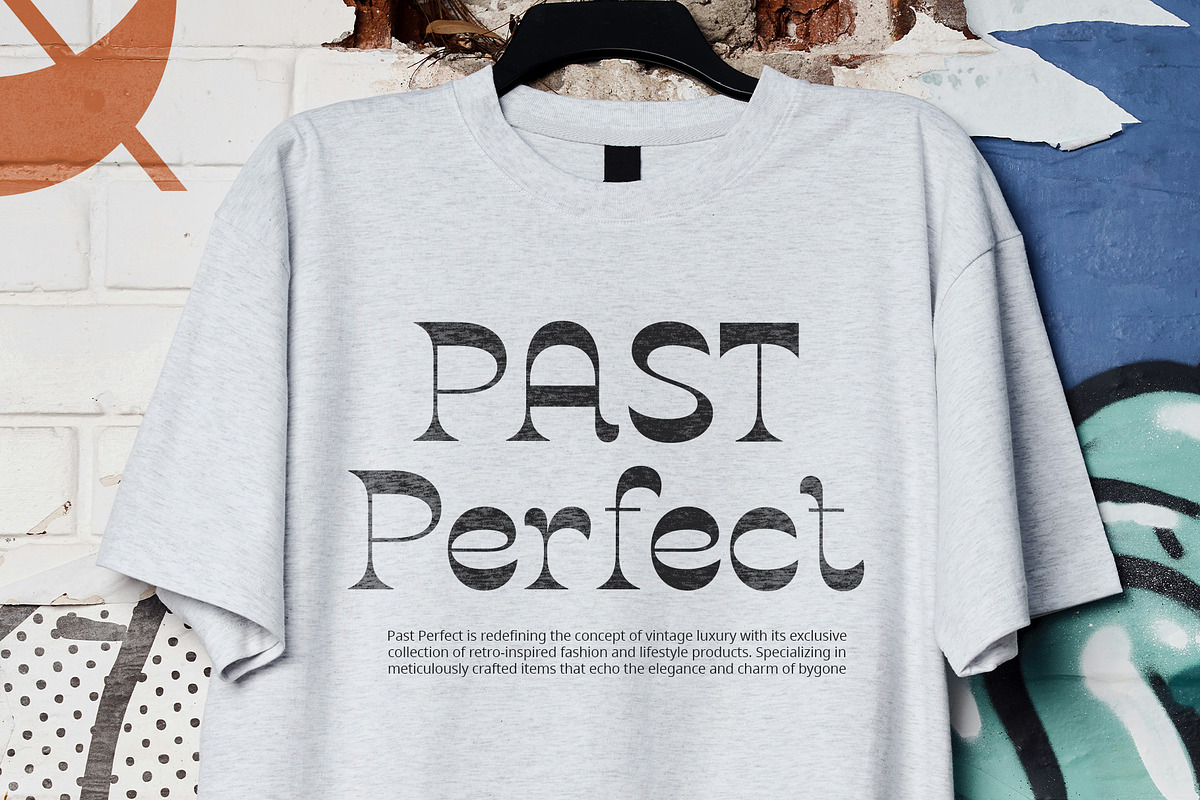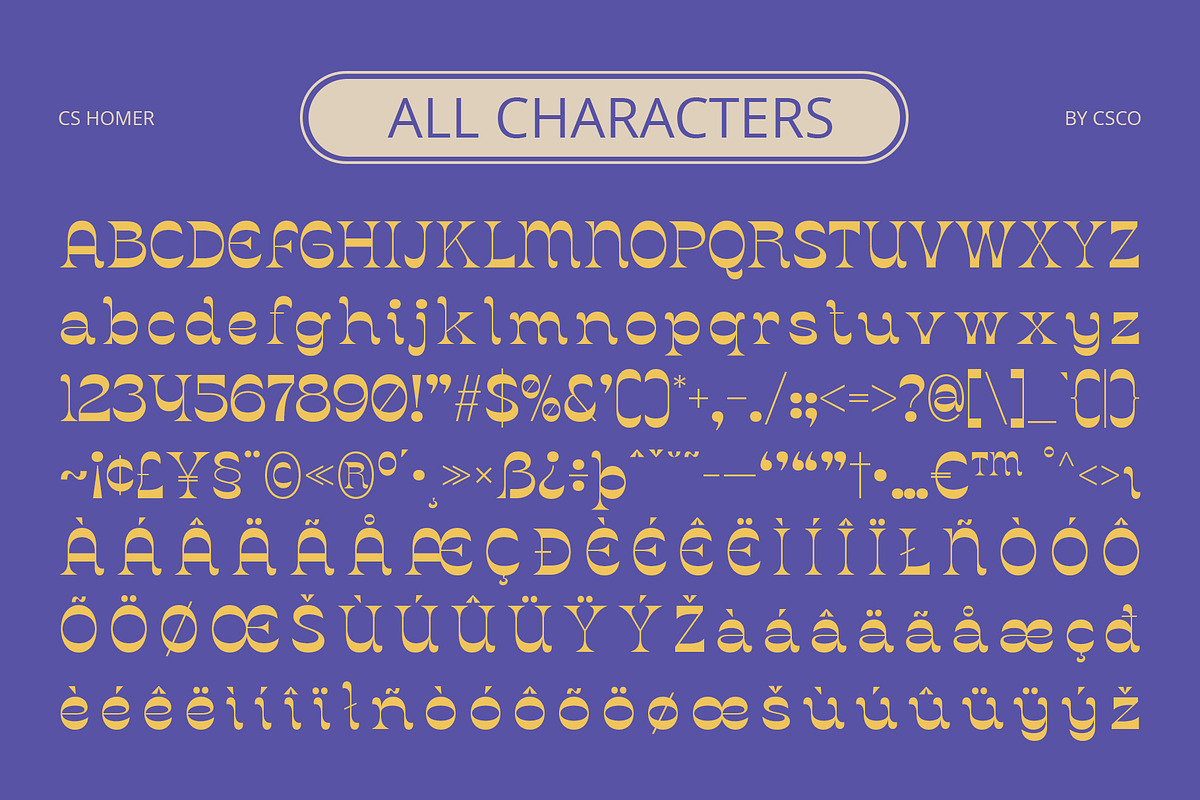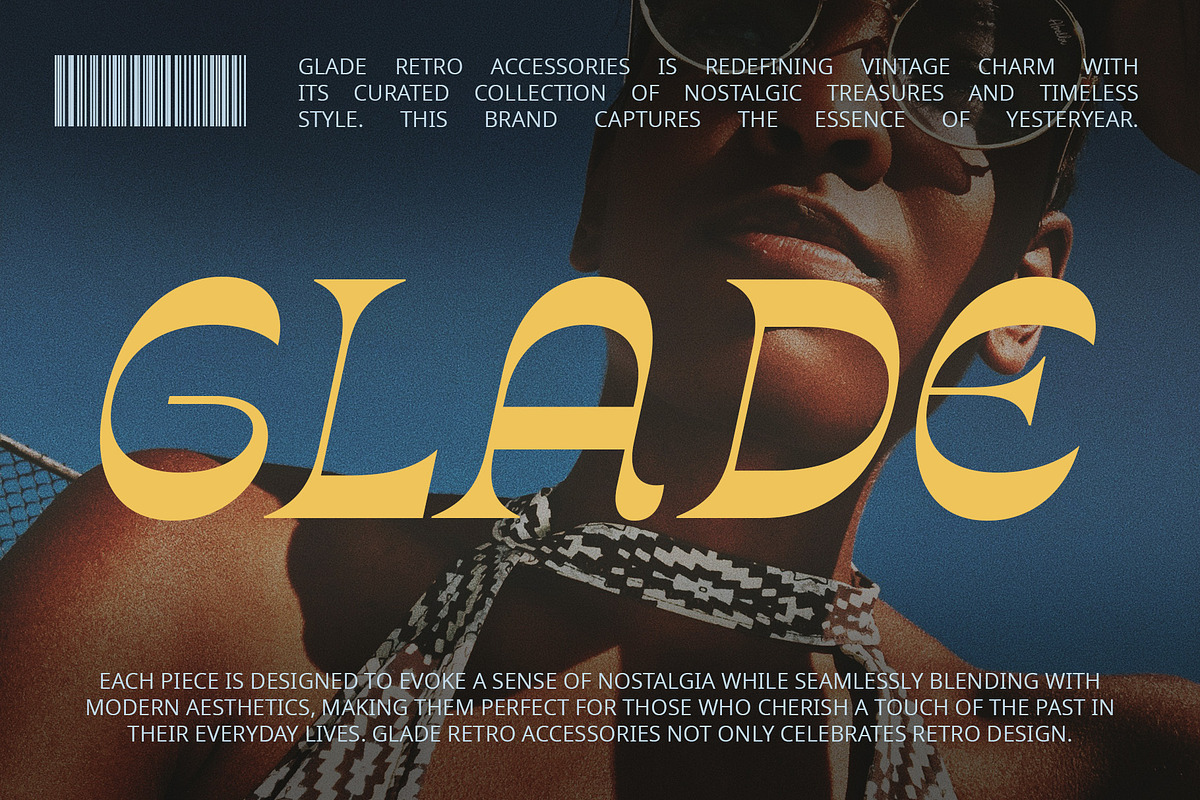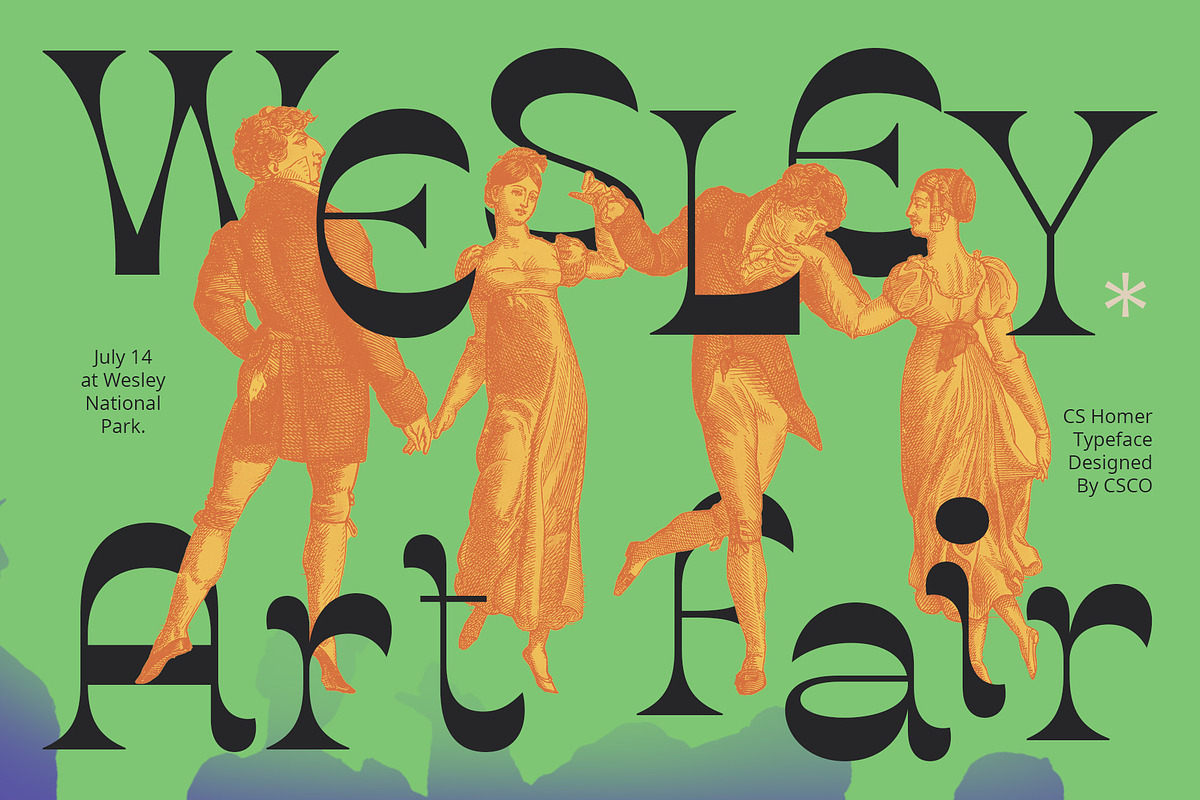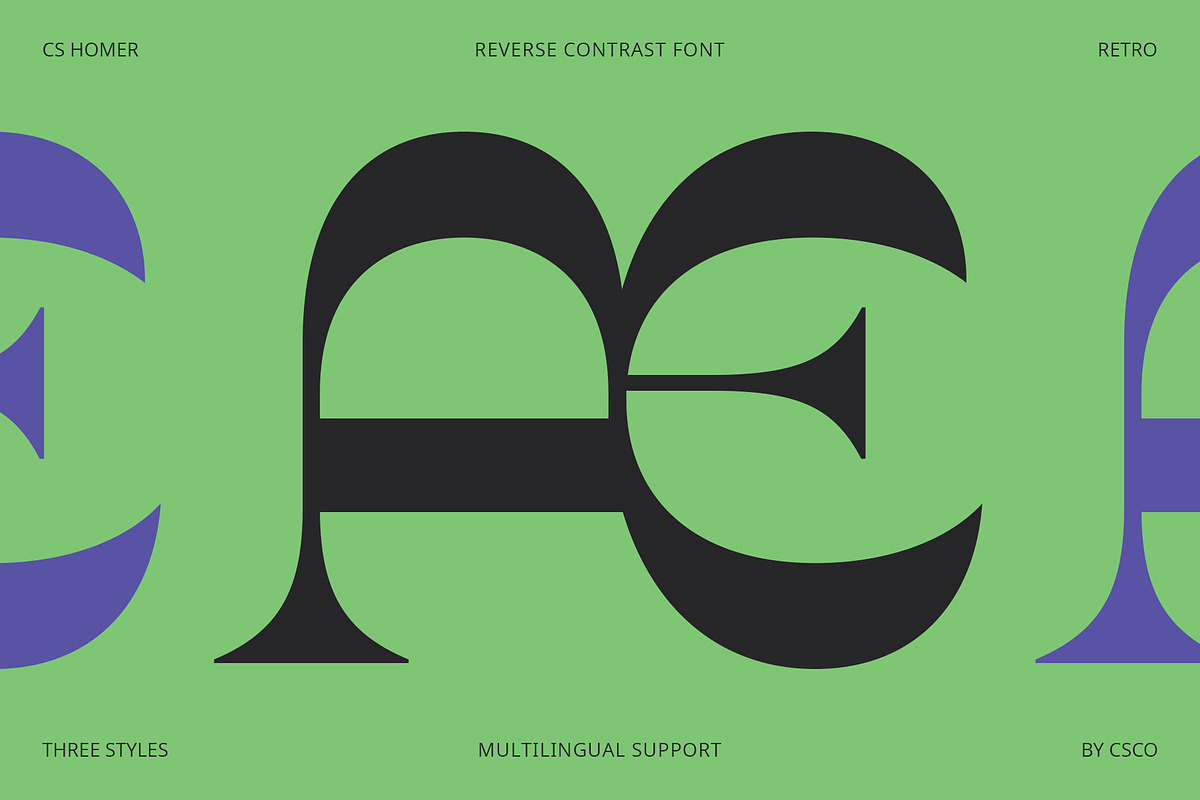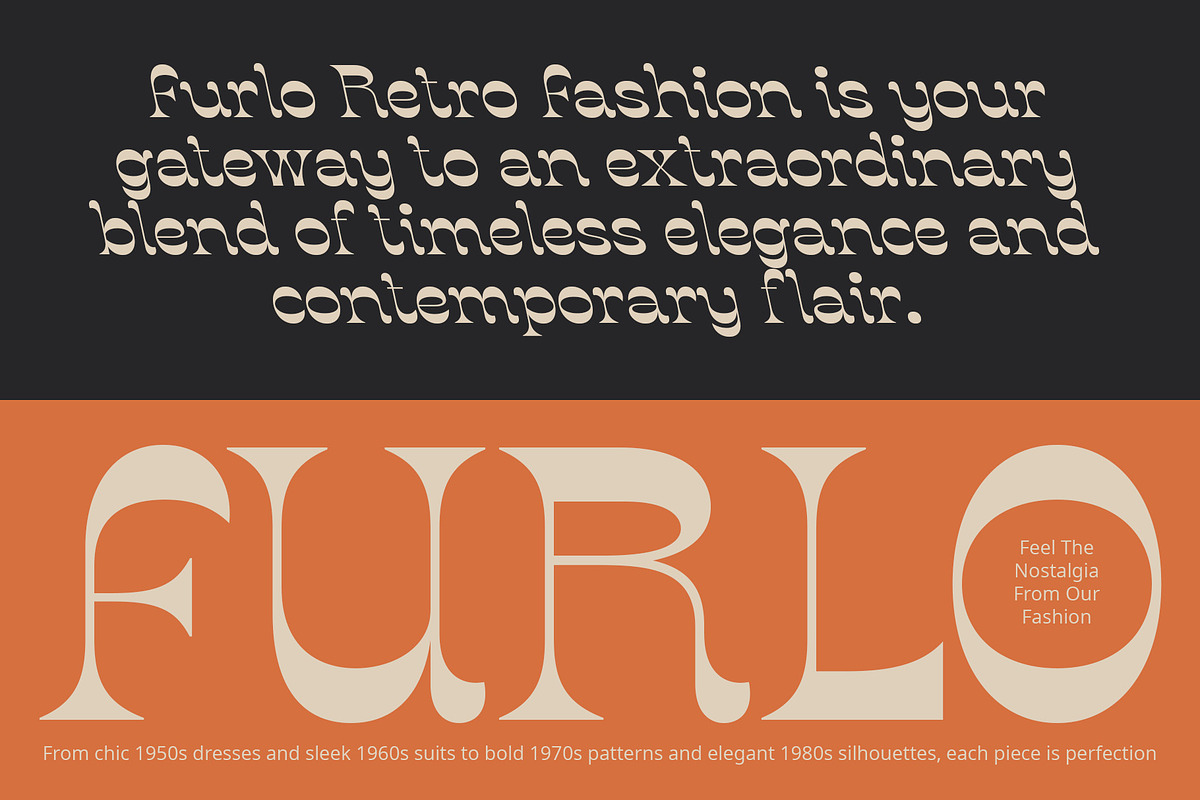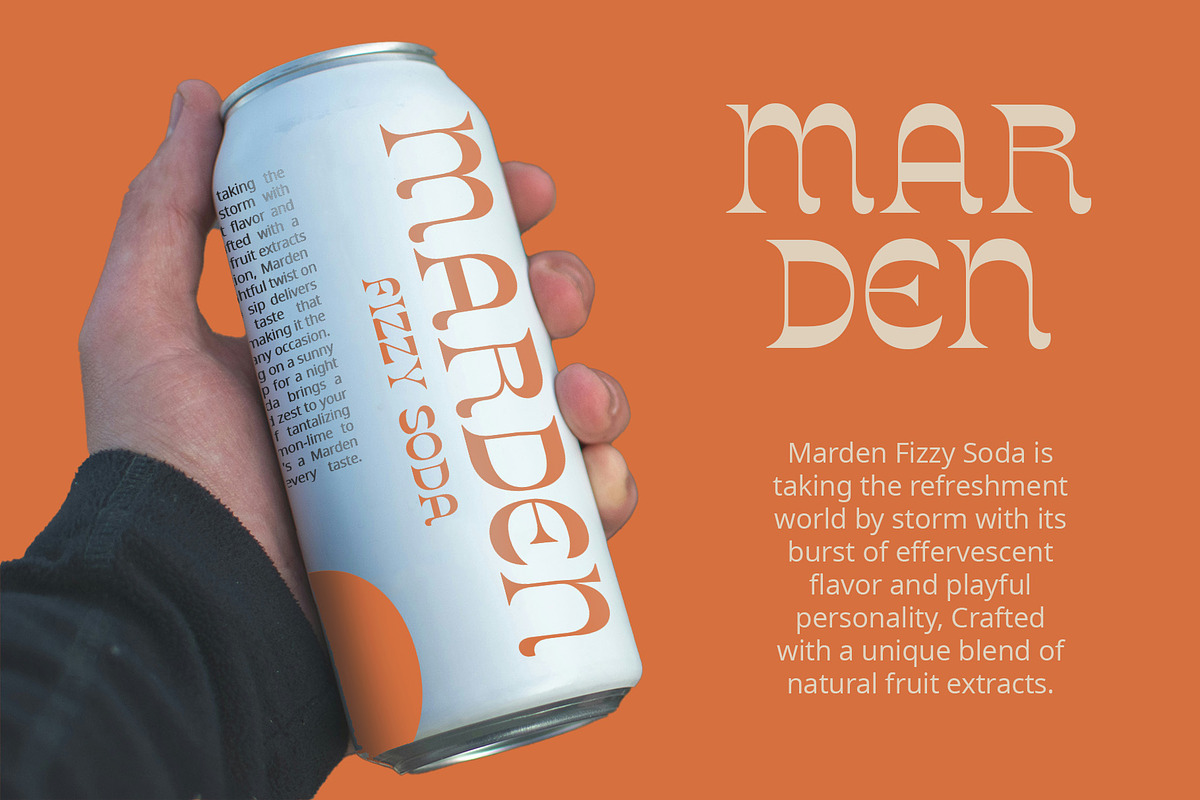
CS Homer - Reverse Contrast Font
CS Homer - Reverse Contrast Font by Craft Supply Co. is a graphic asset selected for editorial graphics, posters, social visuals, brand projects.
- Uppercase and lowercase characters
- Numerals and punctuation
- Multilingual accents
- CS Homer Regular
- CS Homer Italic
- CS Homer Reverse Italic
Why CS Homer - Reverse Contrast Font is worth a look
CS Homer - Reverse Contrast Font by Craft Supply Co. fits naturally into Editorial graphics, posters, social visuals, brand projects.
- Editorial graphics
- social visuals
- brand projects